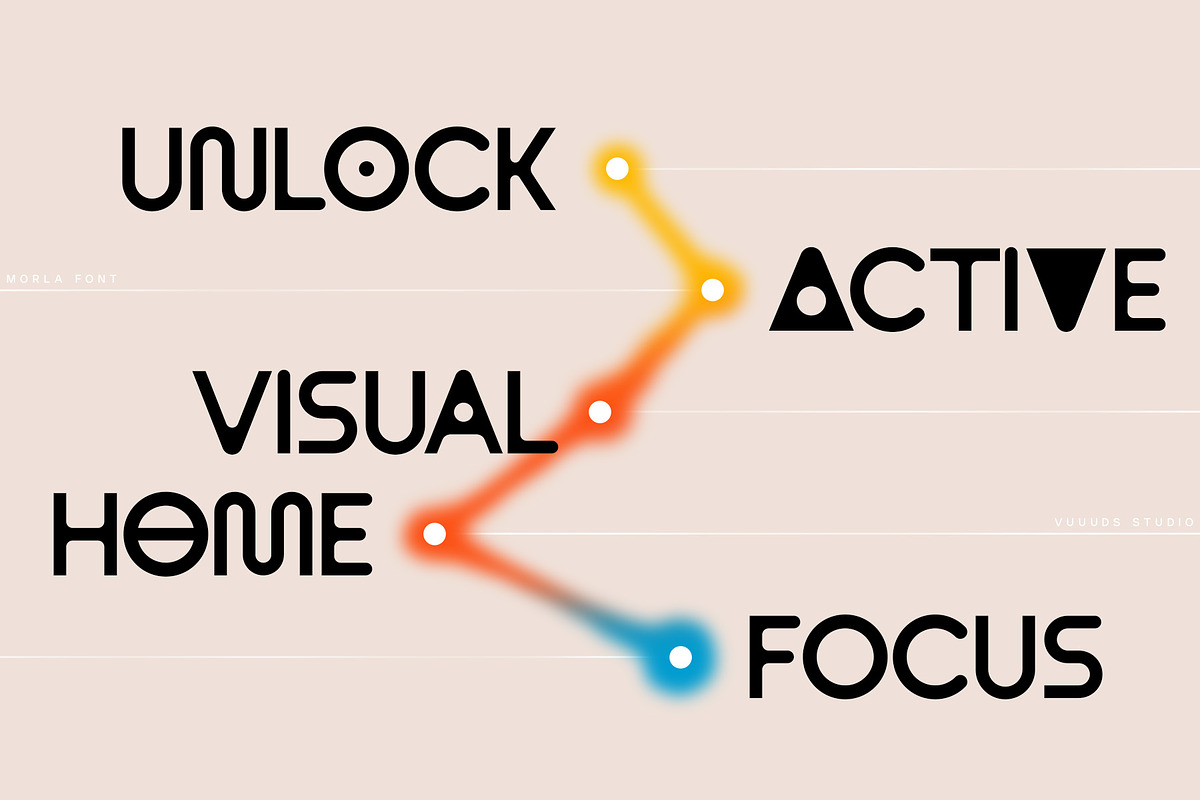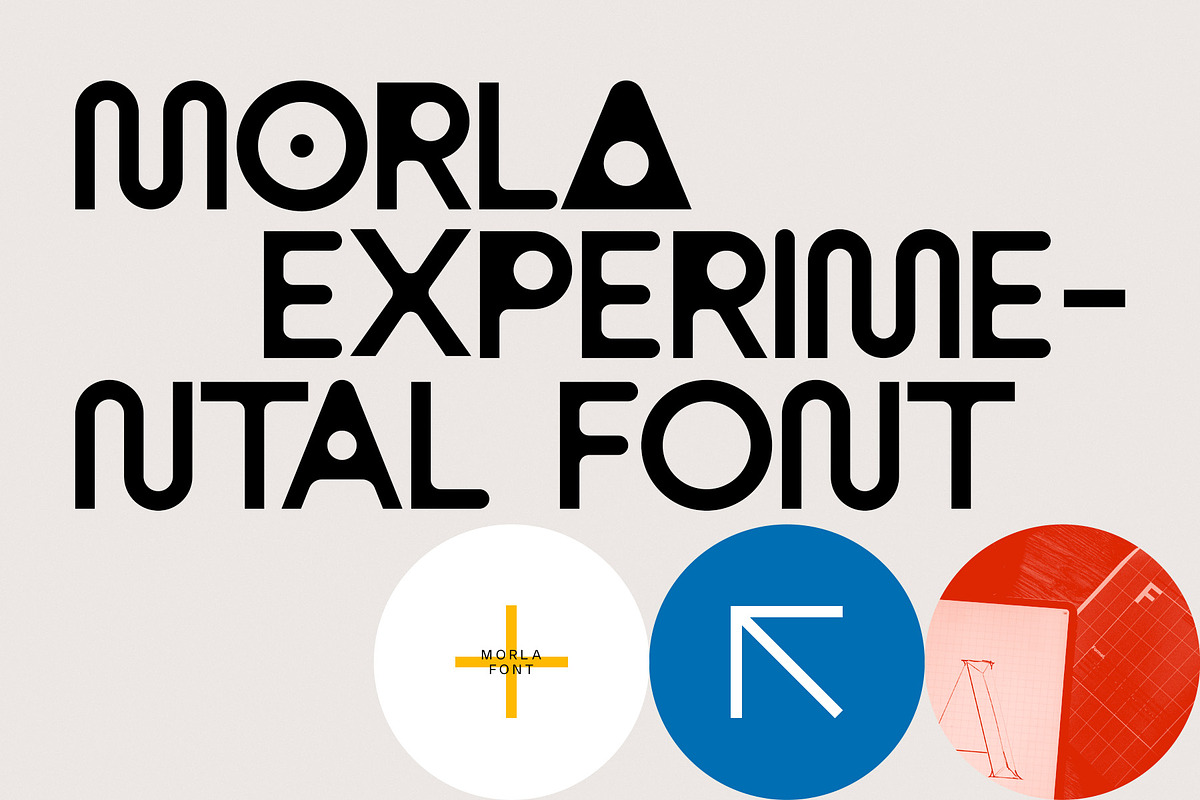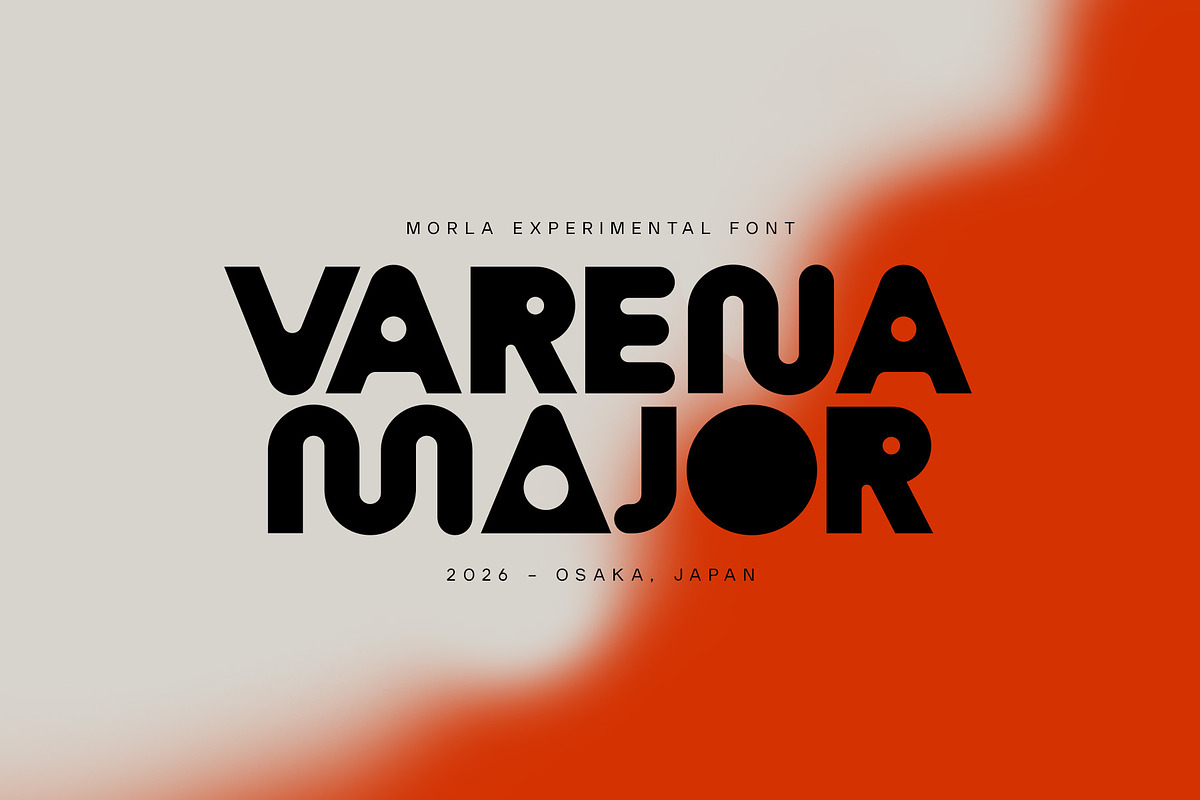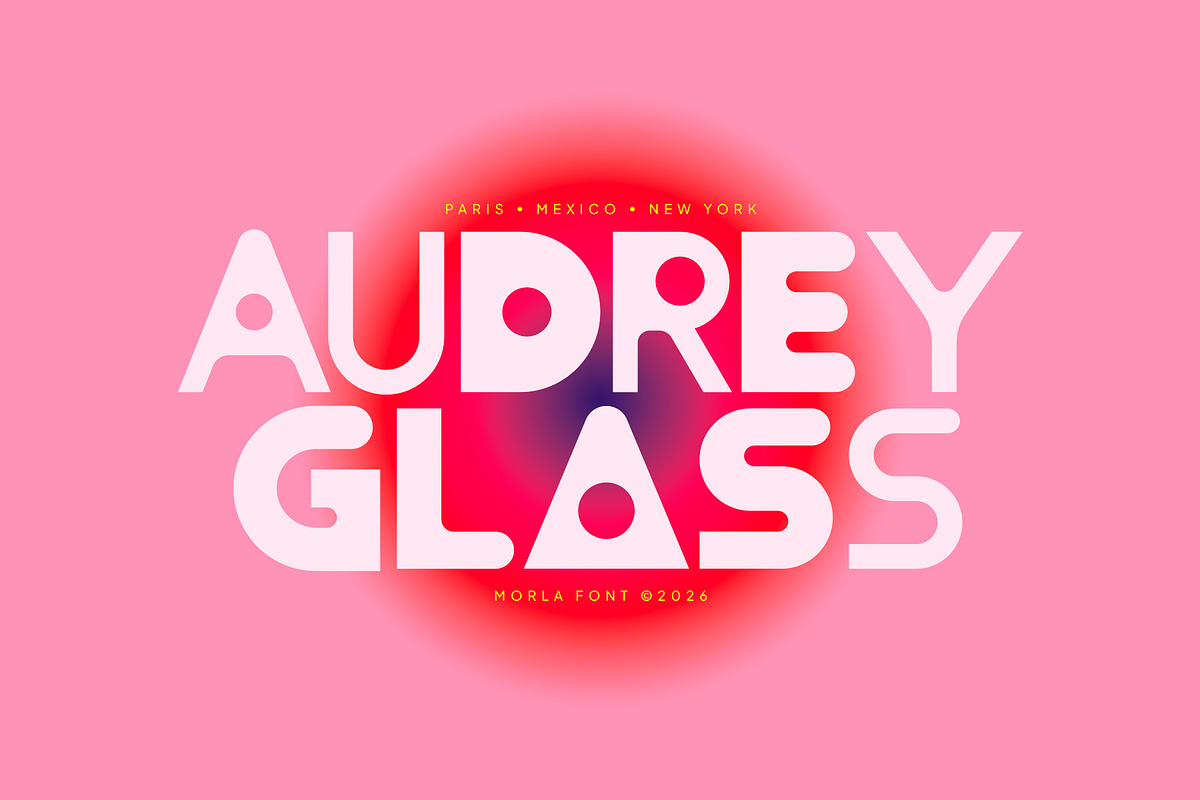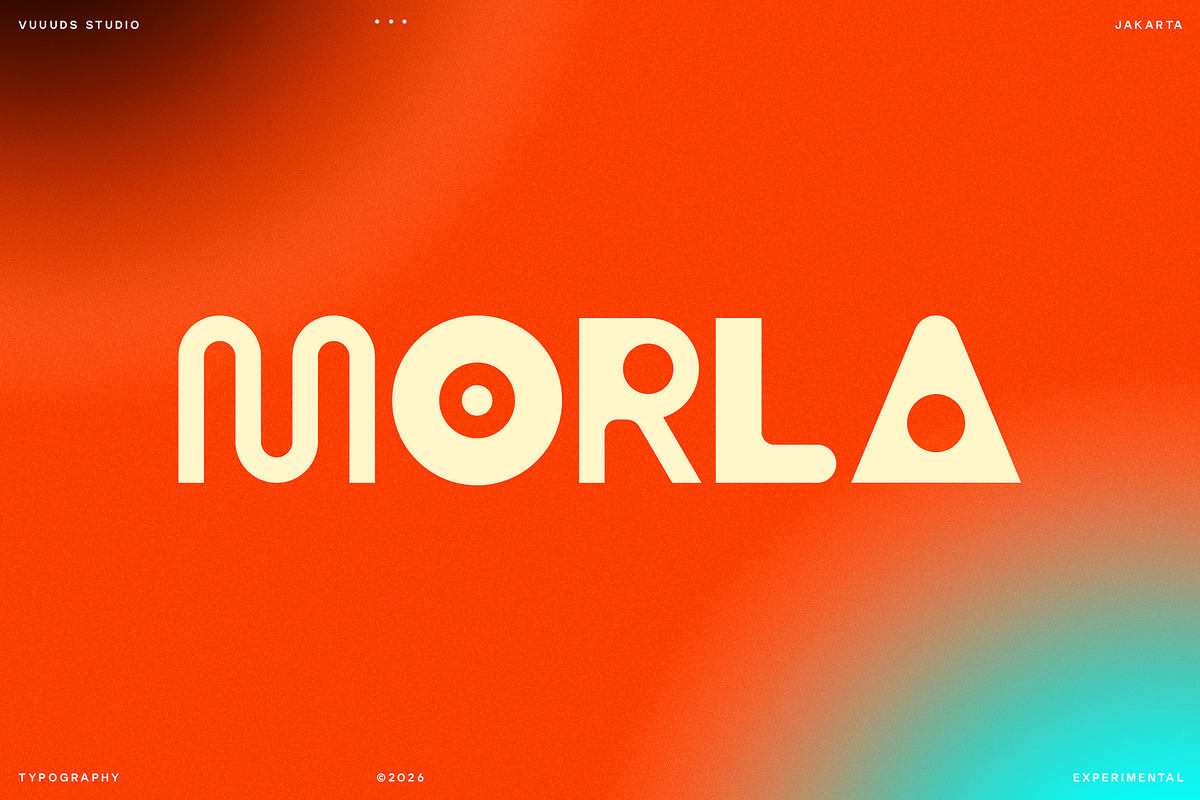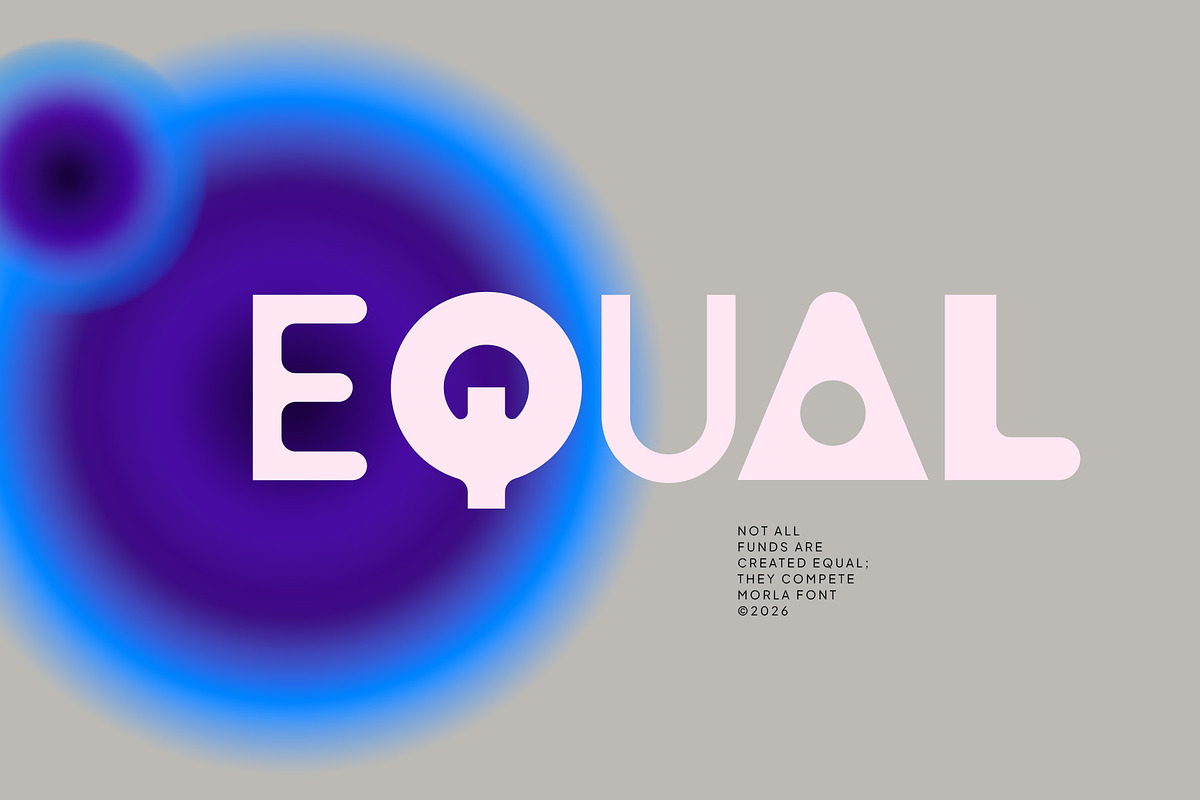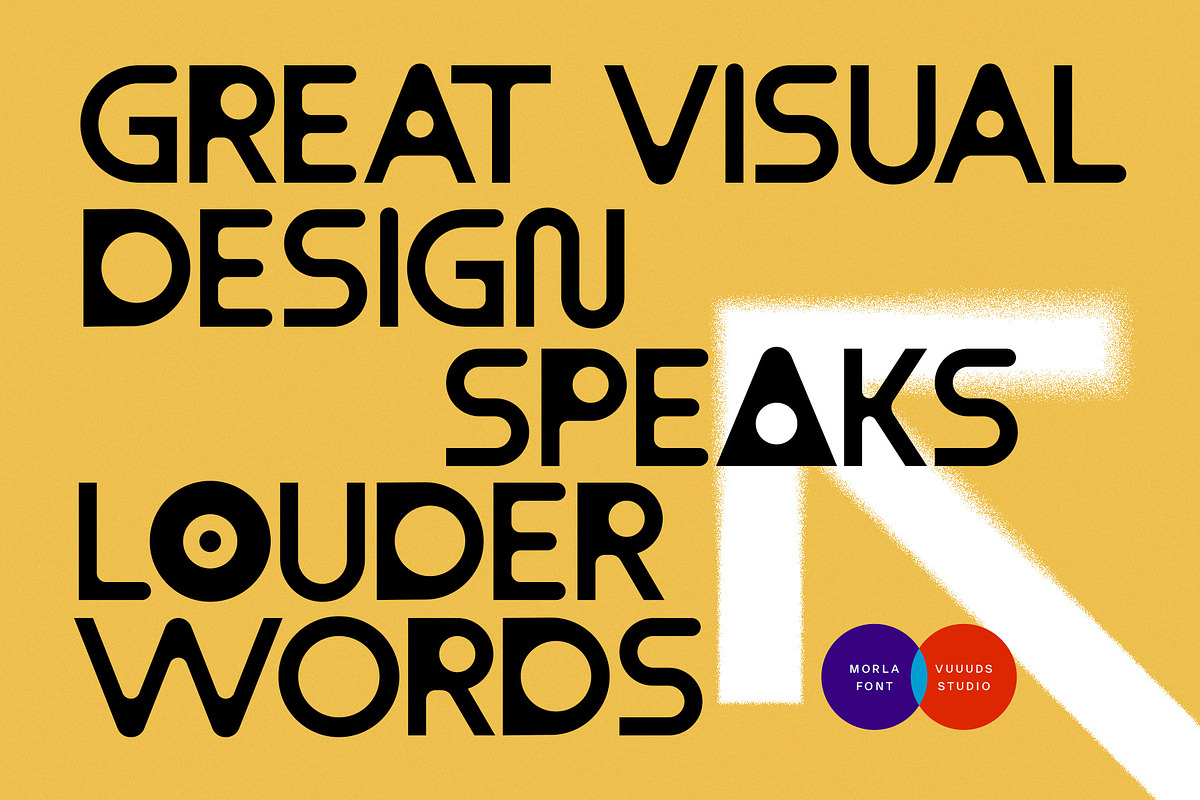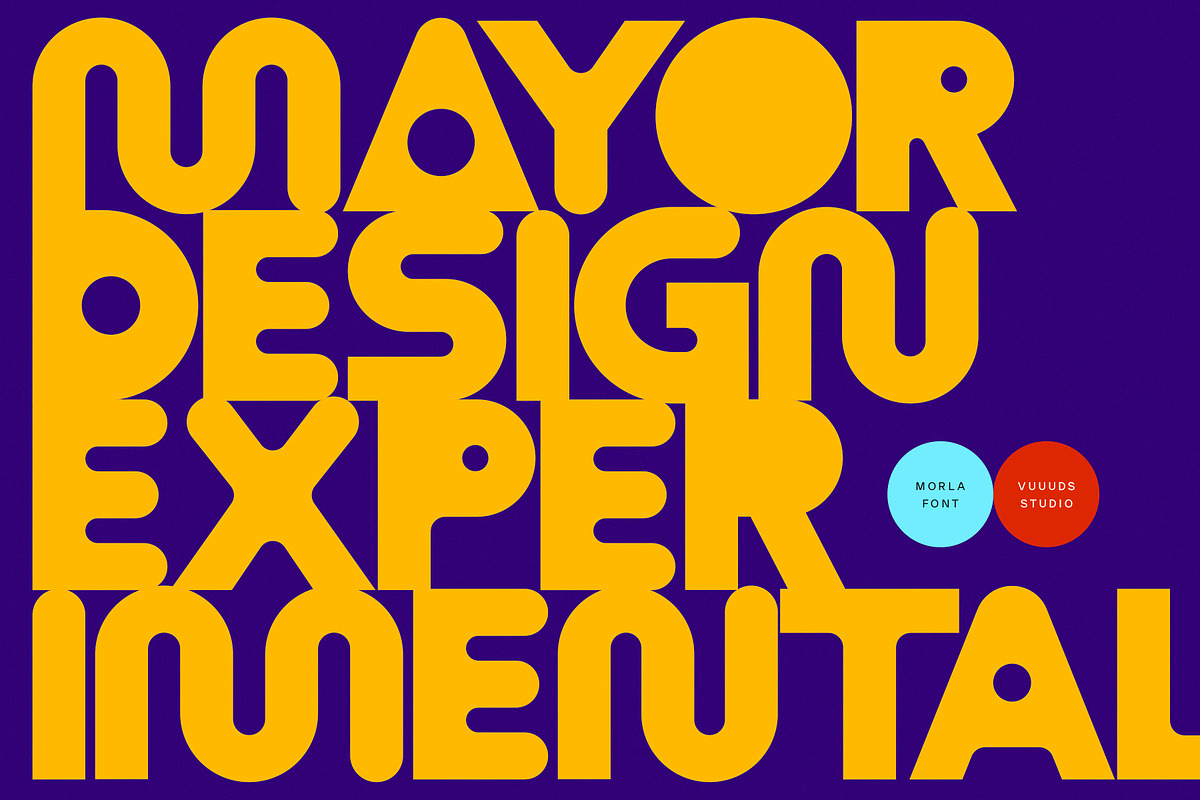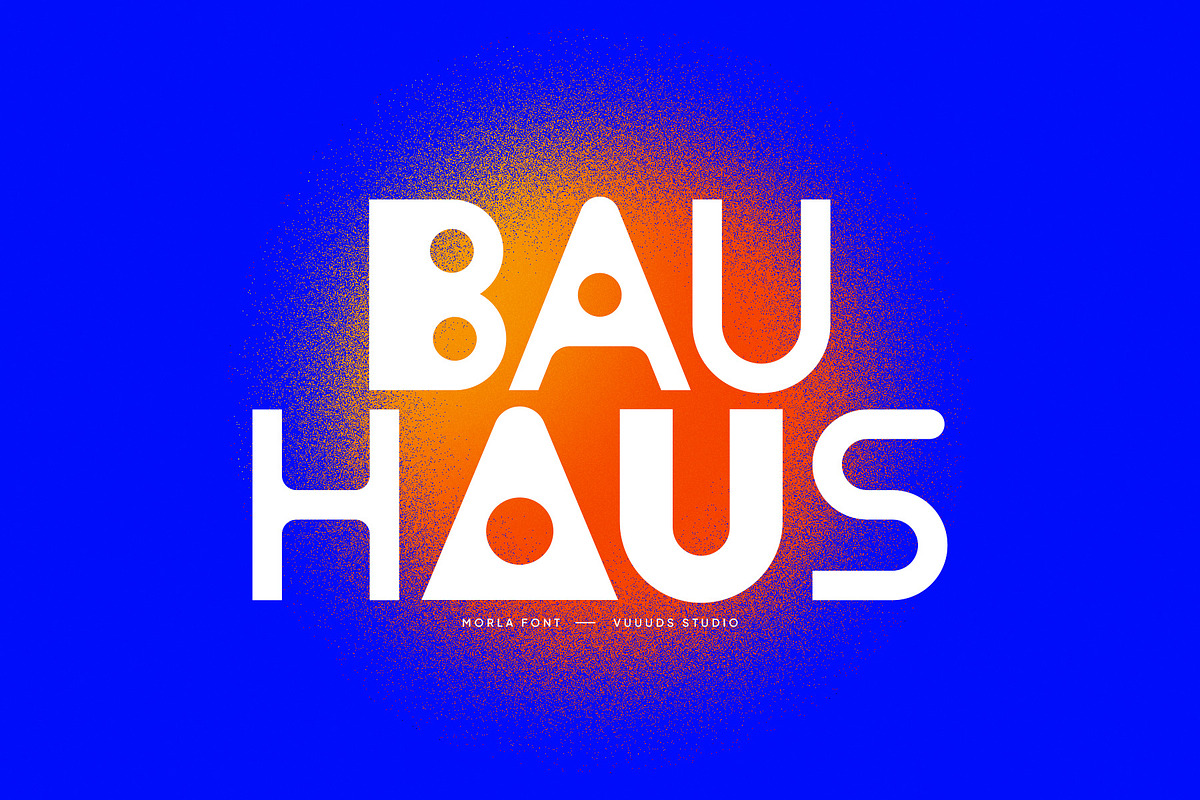
Morla
Morla: Boldly Shape, Differently Good.
A display font crafted with a unique silhouette and heavy strokes. Built to command attention, Morla breaks the ordinary rules to bring a fresh, distinct vibe to your titles, poster designs, and modern branding projects.